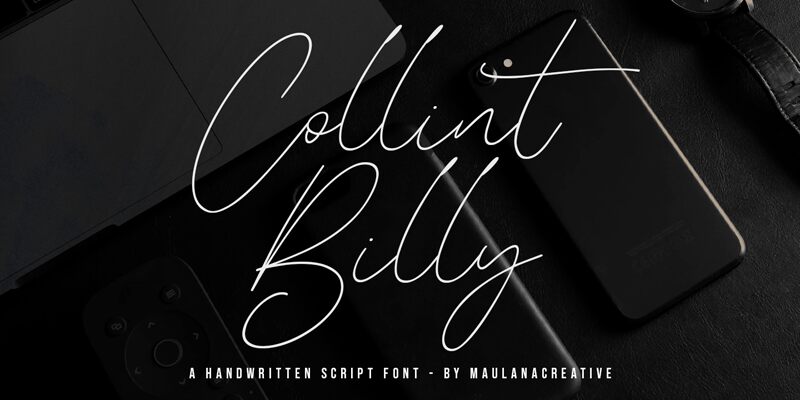
Collint Billy, the ultra-light, semi-condensed handwritten font designed by Maulana Creative, brings a unique and personalized touch to any project. Its informal feel is perfect for adding a personal touch to invitations, greeting cards, and social media graphics. The slim width of this semi-condensed font is also suitable for headlines and titles in magazines or blogs. Collint Billy's easy-to-read style makes it an excellent choice for product packaging or branding materials. Bring your projects to life with Collint Billy - the ultimate handwritten font that adds character and charm to your designs.